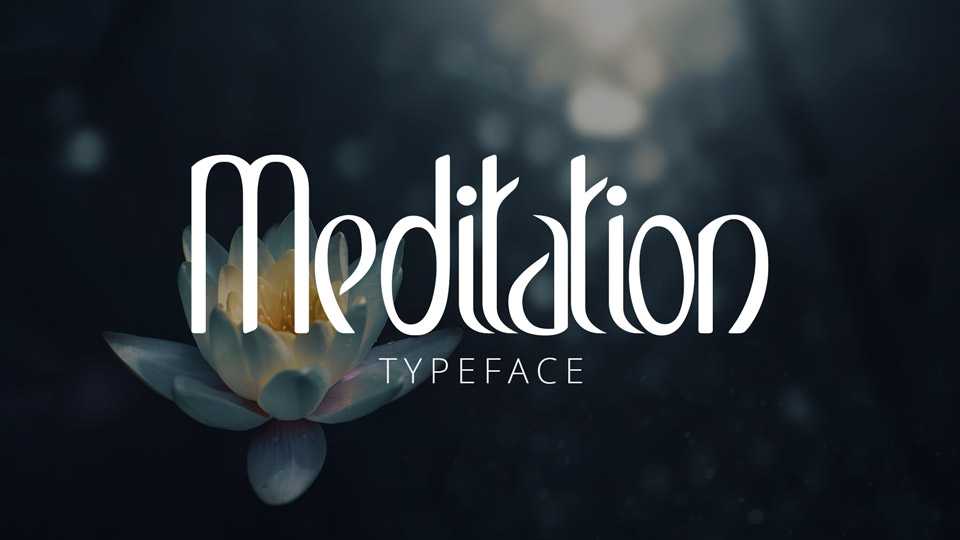
Download Meditation font, a beautiful sans serif typeface, smooth and peaceful. Meditation font is suitable for cards, letters, quotes, social media and other authentic projects.
Designer: BambooTypes